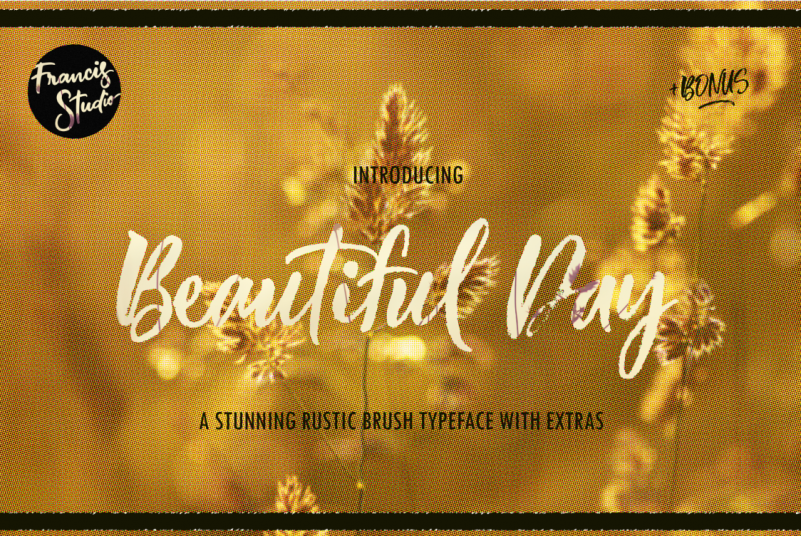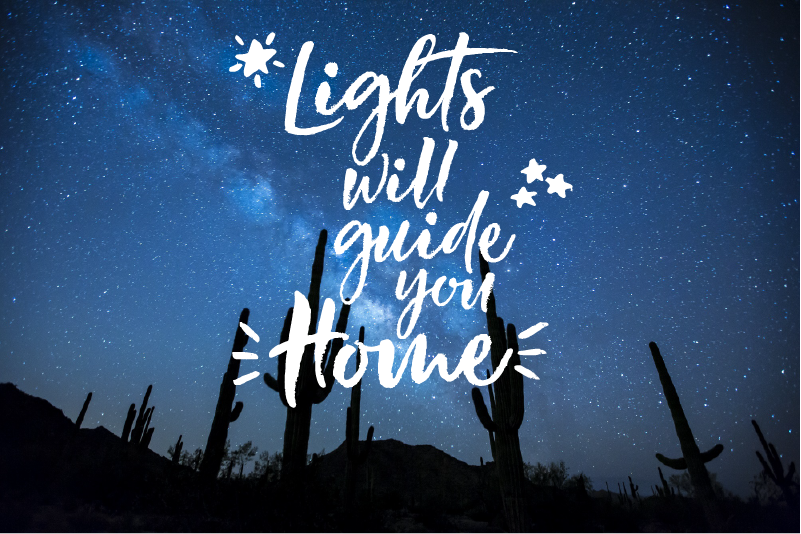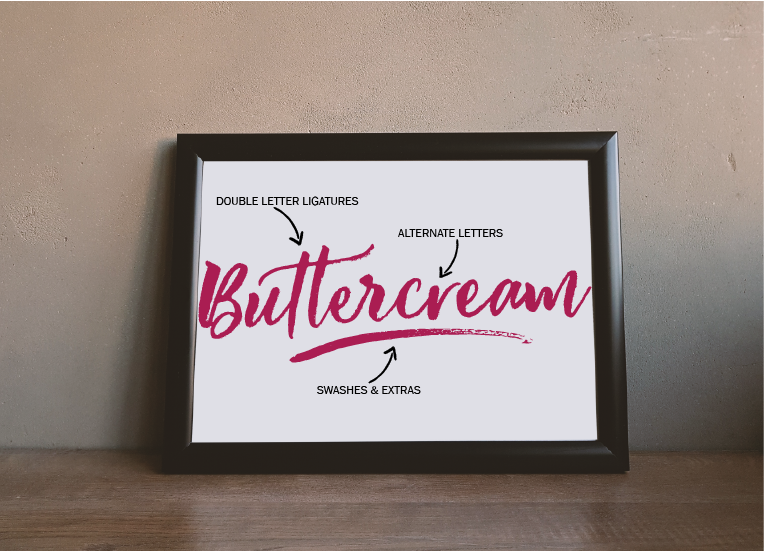
Beautiful Day Font
Beautiful Day Script Font, This font is perfect for any of your creative projects and will help make your designs stand out. The font is ideal for your readers as it is easy to read and is ideal for branding, product packaging or just to add a little flair to your editorial work.
So, yeah, let me introduce to you my newest font—not exactly new because honestly this was created way back 2017, but I decided to publish it this year—named “Beautiful Day.”
This is a stunningly elegant brush typeface that is perfect for almost every design you wish to create.
This font comes with a bonus font file containing a collection of catchwords, doodles, borders and a wide array of swashes that you can incorporate into your design.
Not just that, the full commercial version offers opentype features such as ligatures (double letter ligatures), contextual alternates, and 3 stylistic sets. [SEE IMAGES FOR DETAILS]
By mixing and matching the different stylistic sets, you can add uniqueness and variety to your design and make it look like an authentic brush lettering. How cool is that?